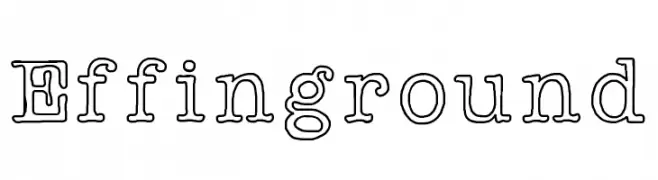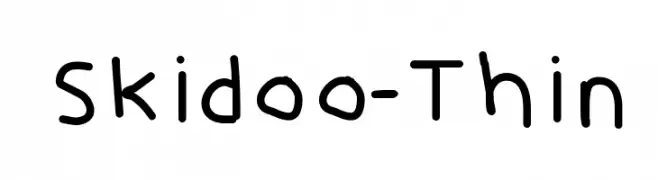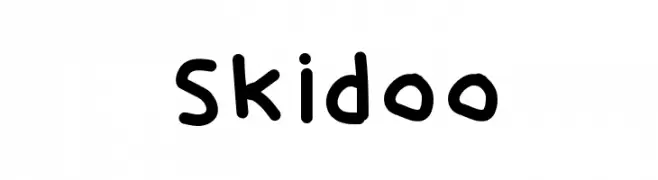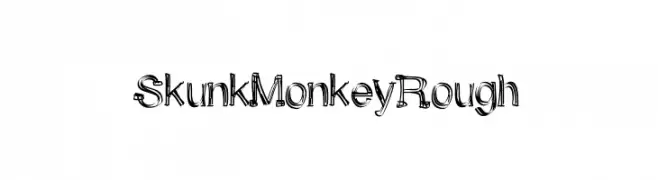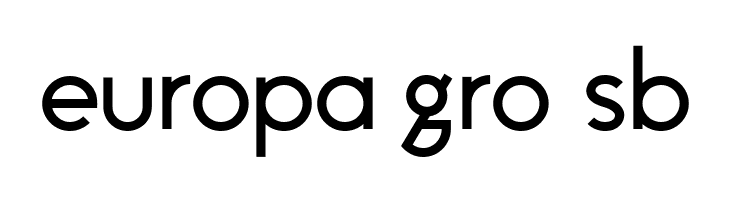
( Josef Faustbeck - www.nize.at )
A modern, geometric sans-serif font with balanced strokes and clear readability.
( Robothaus - Patrick McGrath - robothaus.com )
A bold, outlined serif font with a classic and decorative style.
( Robothaus - Patrick McGrath - robothaus.com )
A playful, handwritten font with rounded, consistent strokes and good readability.
( Robothaus - Patrick McGrath - robothaus.com )
A playful, handwritten font with rounded edges and a casual style.
( Robothaus - Patrick McGrath - robothaus.com )
A playful, hand-drawn font with a rough sketch style.